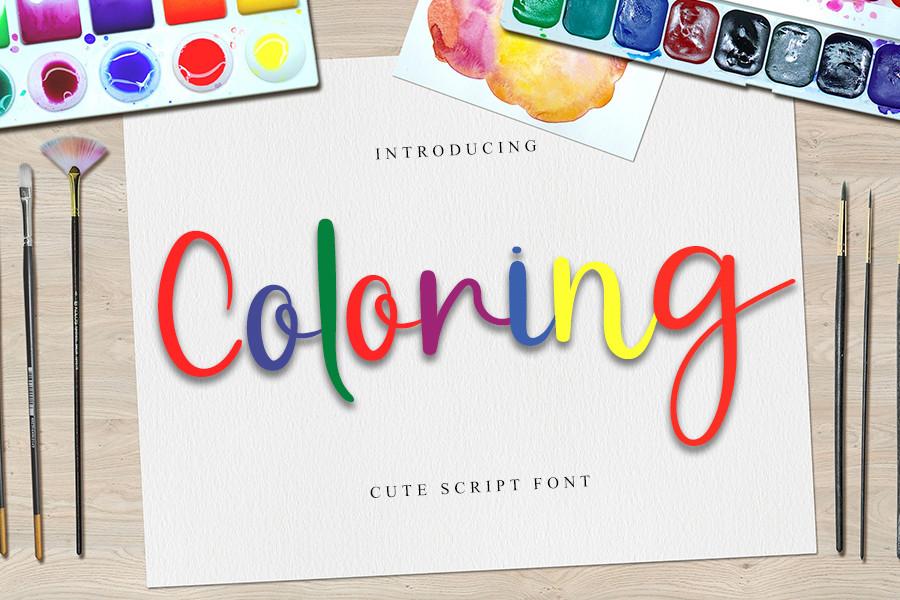
Coloring Font Description
Coloring is an elegant handwritten font with a contemporary atmosphere and impeccable form, inspired by a timeless classic calligraphy. Not too thin and not too thick, balanced and varied, this font was designed to enhance the beauty of your projects.